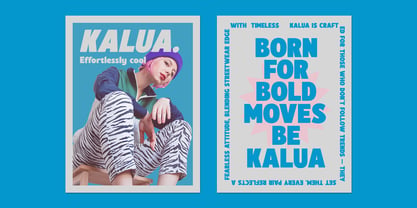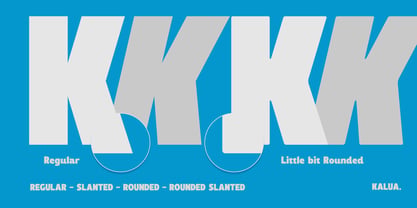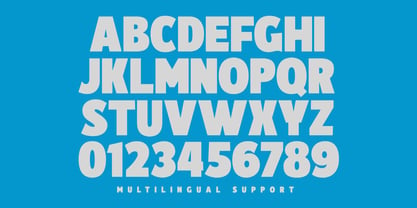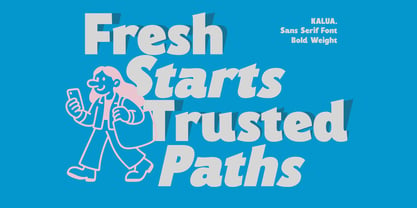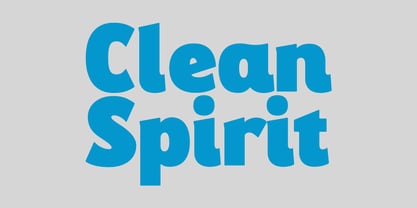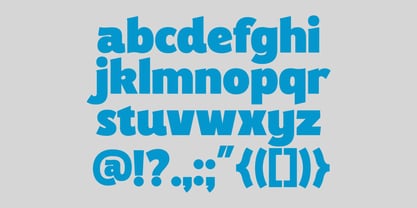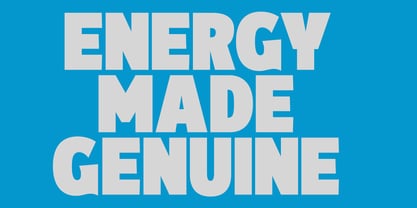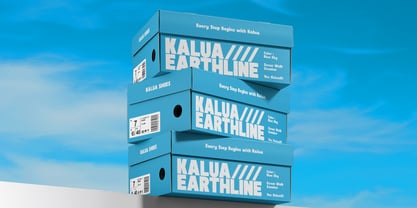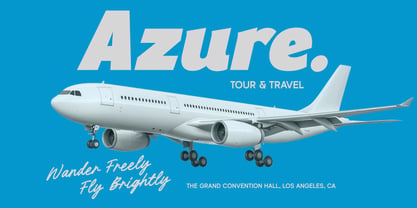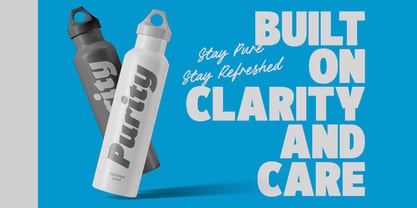
Kalua
by Letterhend
The Kalua Font Family was designed by Hendry Juanda and published by Letterhend. Kalua contains 4 styles and family package options. More about this family
Kalua is a bold sans-serif font that radiates modern energy and confident simplicity. With clean curves, strong proportions, and smooth edges, it delivers a playful yet professional look. Perfect for branding, packaging, posters, and digital designs, Kalua stands out with its friendly geometry and versatile usability. Features : Uppercase & lowercase Numbers and punctuation Alternates & Ligatures Multilingual Support PUA encoded
Designers: Hendry Juanda
Foundry: Letterhend